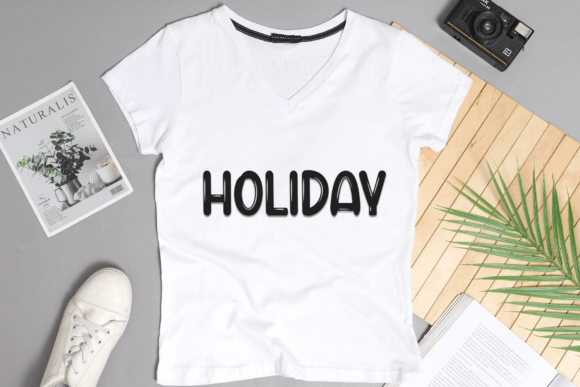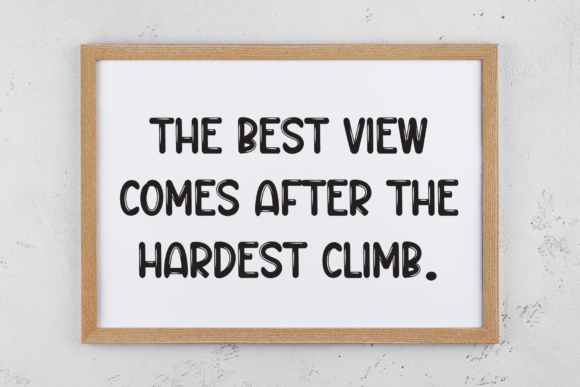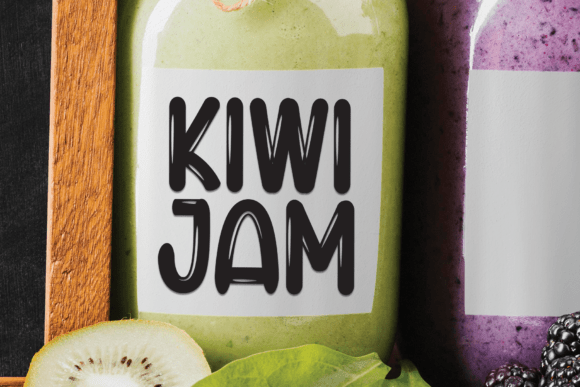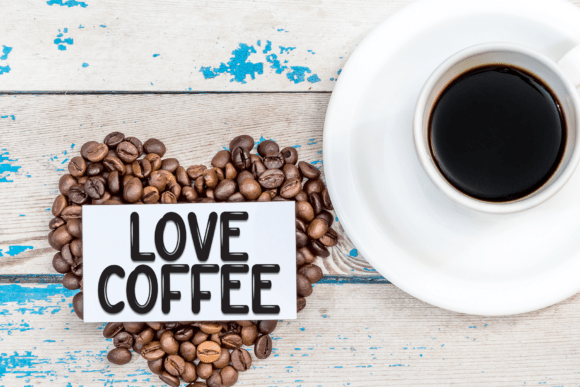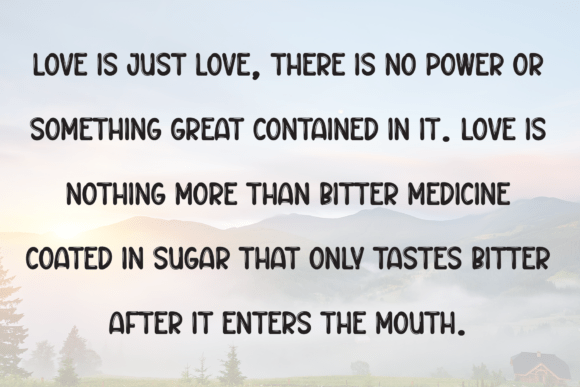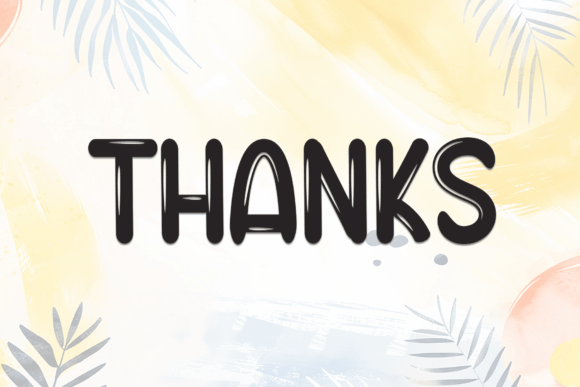
Introducing Brush Summer: The Ultimate Sun-Kissed Font for Your Creative Projects
Are you looking for a font that captures the essence of a warm summer day? Look no further than Brush Summer, a stunning brush display font that’s perfect for adding a touch of sun-kissed charm to your designs. With its unique blend of friendly and bold characteristics, Brush Summer is ideal for a wide range of creative projects, from beach promotions and festival posters to stickers, tees, and packaging.
The Characteristics of Brush Summer
Brush Summer font makes a bold statement with its thick, brush-built letterforms, rounded terminals, and relaxed, bouncy baseline. The generous x-height and clean counters work together to keep headlines crisp and easy to read, even at a glance. The font’s subtle texture suggests real ink on paper, giving it a organic and hand-painted feel that’s perfect for designs that need a personal touch.
One of the standout features of Brush Summer is its love of color, gradients, and playful drop shadows. The chunky shapes of the letterforms are begging to be paired with bright, bold hues that evoke the feeling of a summer day. Whether you’re designing a poster for a music festival or a label for a refreshing drink, Brush Summer is the perfect choice.
Perfect Pairings and Uses
Brush Summer is a versatile font that can be used in a variety of ways. For a bold, eye-catching look, pair it with a neat sans serif font to create a striking contrast. Alternatively, let Brush Summer shout solo and be the star of the show. Its friendly and approachable vibe makes it perfect for designs that need to convey a sense of fun and approachability.
Some ideas for using Brush Summer include:
- Beach promotions and advertisements
- Festival posters and flyers
- Stickers and labels
- T-shirts and other apparel
- Packaging for summer-themed products
Why Choose Brush Summer?
So why choose Brush Summer for your next design project? Here are just a few reasons:
- Unique and eye-catching design that’s sure to grab attention
- Versatile and can be used in a variety of creative projects
- Easy to read and understand, even at a glance
- Perfect for designs that need a personal, hand-painted touch
Brush Summer is a one-of-a-kind font that’s perfect for designers and crafters who want to add a touch of summer sunshine to their work. With its unique blend of friendly and bold characteristics, Brush Summer is sure to turn your layouts into postcards that evoke the feeling of a warm summer day. So why wait? Download Brush Summer today and start creating your own sun-kissed designs!